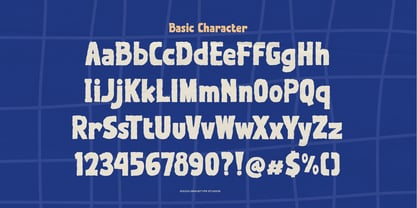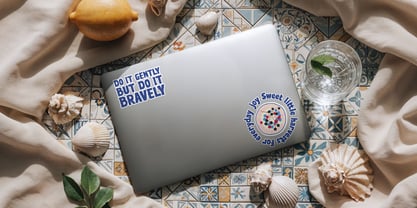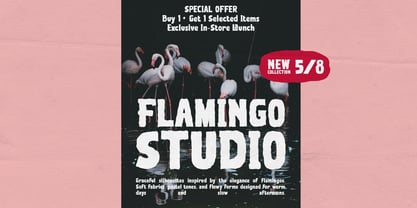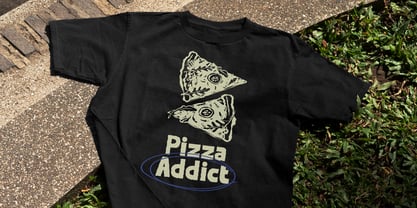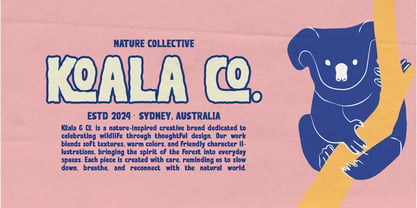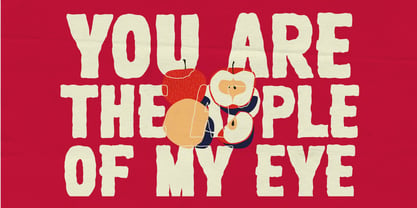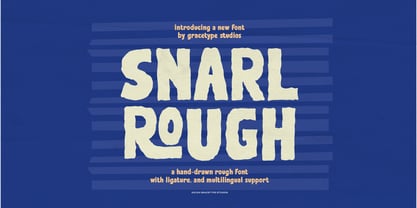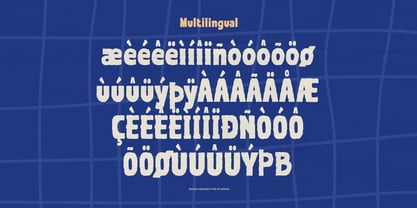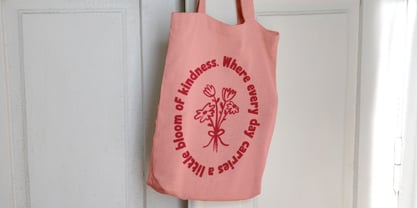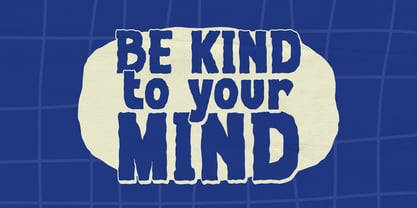
Snarl Rough
by Tini Fitriani
The Snarl Rough Font Family was designed by and published by Tini Fitriani. Snarl Rough contains 2 styles and family package options. More about this family
Snarl Rough | Hand Drawn Rough Font, from Gracetypestudio, suitable for any projects such as: logos, branding projects, homeware designs, product packaging, mugs, quotes, posters, shopping bags, t-shirts, book covers, name card, invitation cards, greeting cards, label, photography, watermark, special events, and all your other lovely projects that need a Hand Drawn taste.